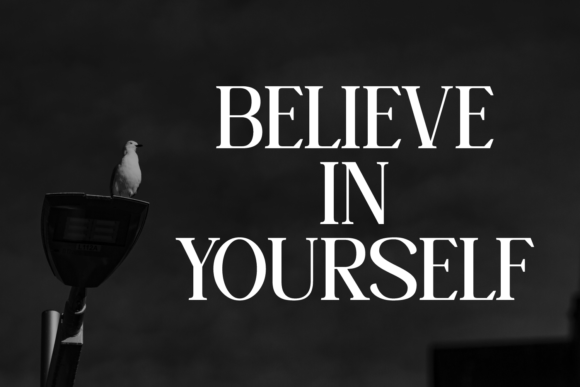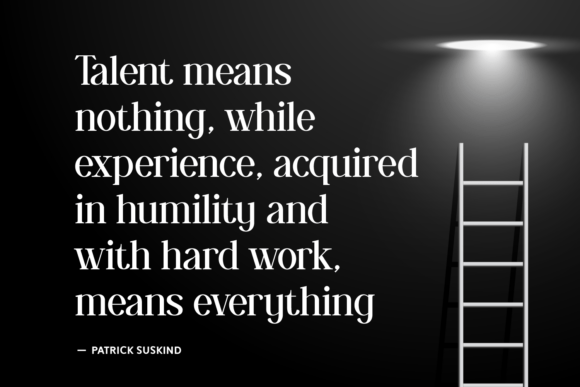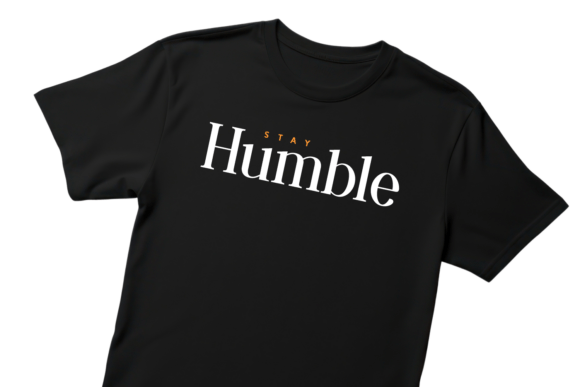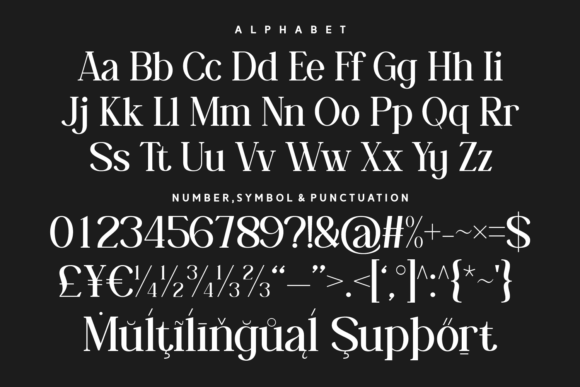
Discover the Inspiring “Find Hope” Font: A New Serif Typeface for Creative Expression
In the world of typography, fonts are more than just a means of communication – they’re an expression of emotion, tone, and personality. For designers, crafters, and creatives, finding the right font can elevate a project from ordinary to extraordinary. That’s why we’re excited to introduce the “Find Hope” font, a new serif typeface that’s sure to inspire and captivate audiences.
The Story Behind “Find Hope”
The “Find Hope” font is more than just a collection of letters – it’s a message of optimism and resilience. In a world where hope and positivity are often needed, this font aims to provide a visual representation of the human spirit. With its strong, yet gentle lines, “Find Hope” embodies the idea that even in the darkest moments, there’s always a way forward.
Design Features and Characteristics
The “Find Hope” font boasts a range of design features that make it perfect for creative projects. Some of its key characteristics include:
- Serif style: The font features a classic serif style, with subtle flourishes that add a touch of elegance and sophistication.
- Legibility: The font is designed to be highly legible, making it perfect for body text, headings, and titles.
- Emotional depth: The font’s lines and curves are carefully crafted to evoke a sense of emotion and connection.
- Versatility: “Find Hope” is suitable for a wide range of creative projects, from digital designs to print materials.
Whether you’re a professional designer or a crafter looking for a unique font for your project, “Find Hope” is an excellent choice. Here are just a few ways you can use this inspiring font:
- Branding and marketing materials: Use “Find Hope” to create eye-catching logos, brochures, and social media graphics that convey a sense of hope and positivity.
- Digital designs: Add a touch of elegance to your website, blog, or social media graphics with this beautiful serif font.
- Print materials: Use “Find Hope” for print projects like posters, flyers, and business cards to create a lasting impression.
- Crafting and DIY projects: Add a personal touch to your handmade crafts, such as journals, cards, and scrapbooking projects.
Why Choose “Find Hope”?
With so many fonts available, why choose “Find Hope”? Here are just a few reasons:
- Unique and distinctive: “Find Hope” stands out from the crowd with its elegant serif design and emotional depth.
- High-quality design: The font is carefully crafted to ensure high legibility and aesthetic appeal.
- Emotional resonance: “Find Hope” connects with audiences on an emotional level, making it perfect for projects that aim to inspire and uplift.
The “Find Hope” font is a powerful and inspiring typeface that’s sure to elevate your creative projects. With its elegant serif design, emotional depth, and versatility, this font is perfect for designers, crafters, and creatives looking to add a touch of hope and positivity to their work. Download “Find Hope” today and discover a new world of creative possibilities!